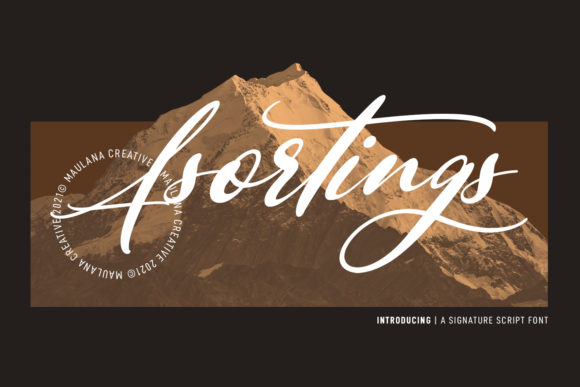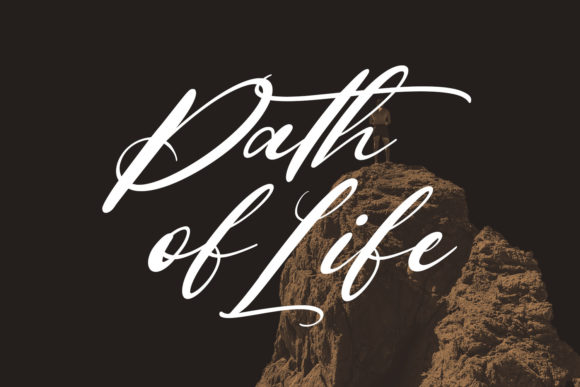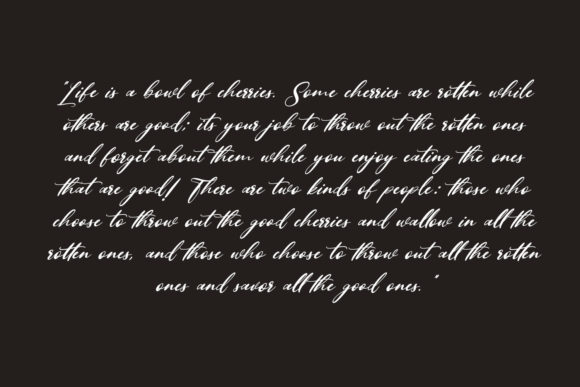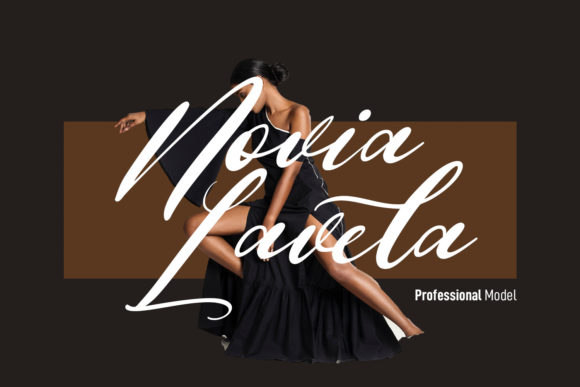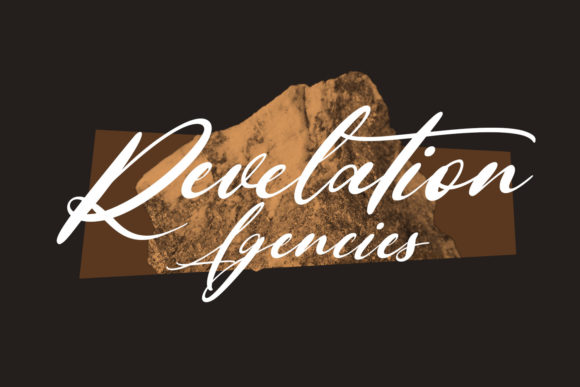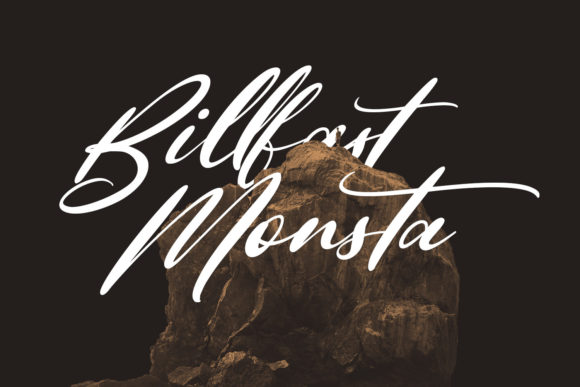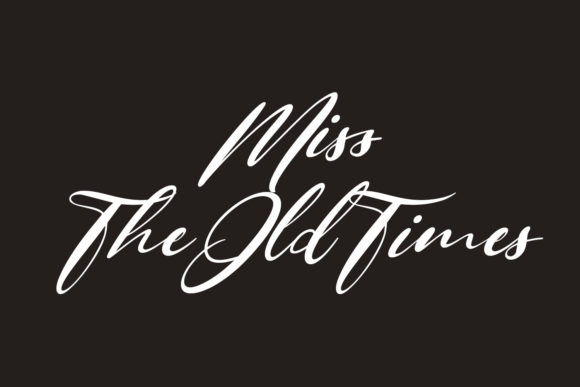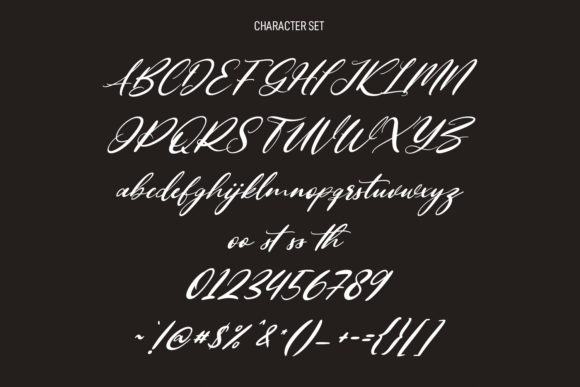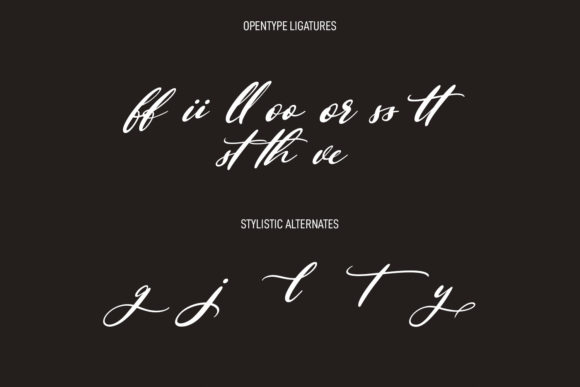
Asortings Script Font
About Asortings Script Font
Asortings Script is a lovely and timeless handwritten font. It is the best choice for creating eye catching logos, branding and quotes. Every letter has a unique and beautiful touch, which will make your design come alive!